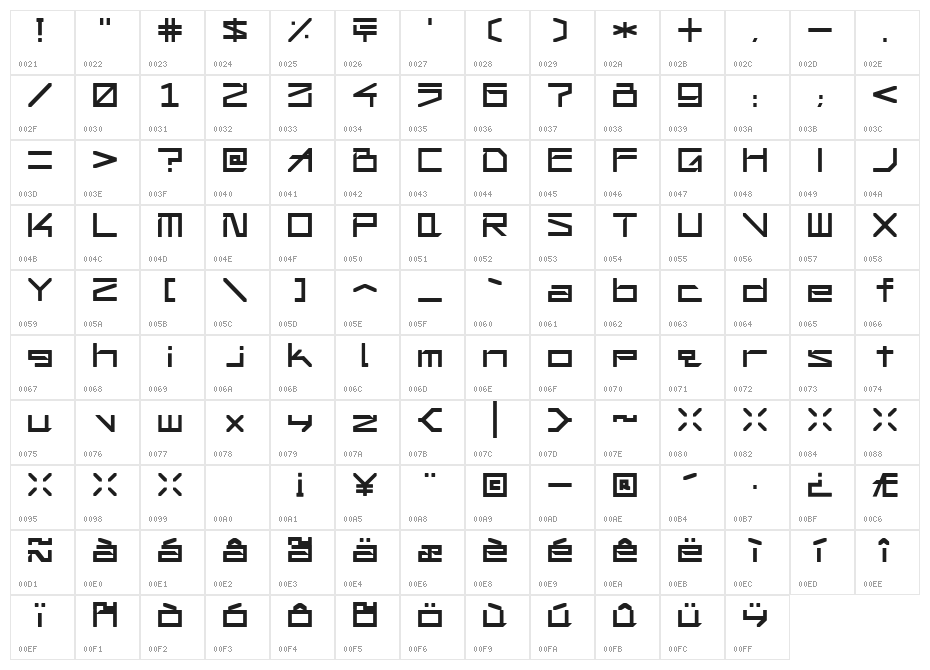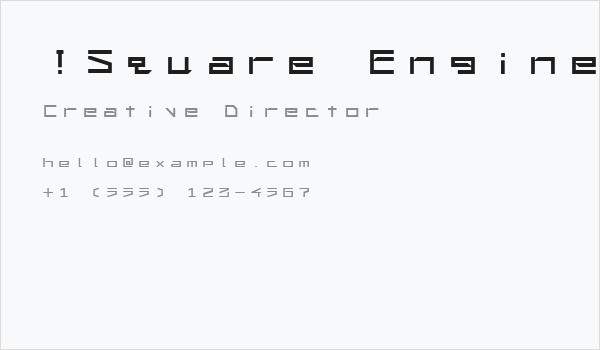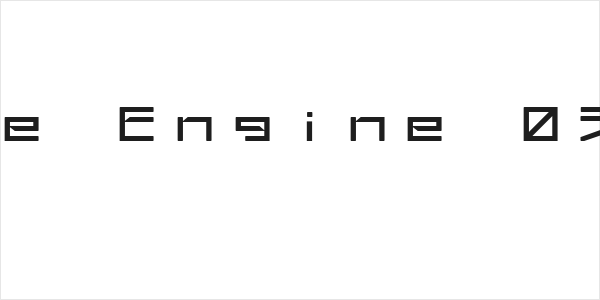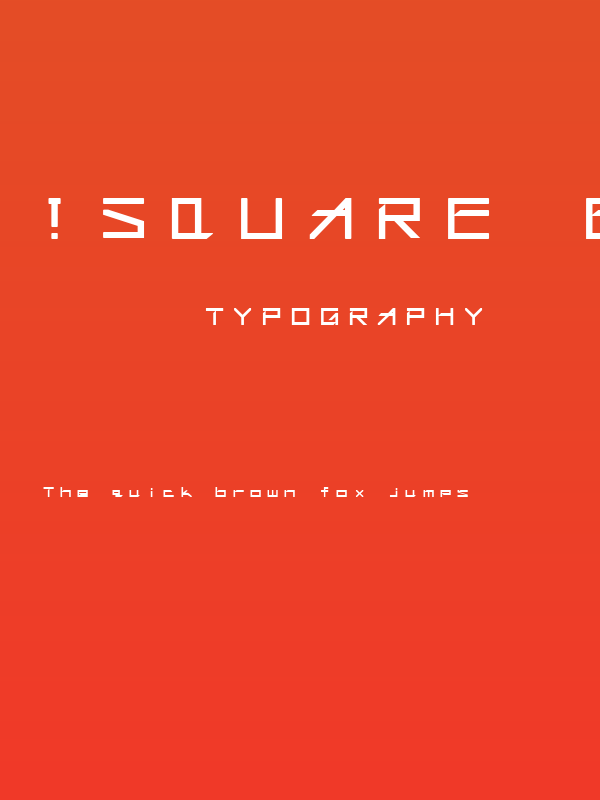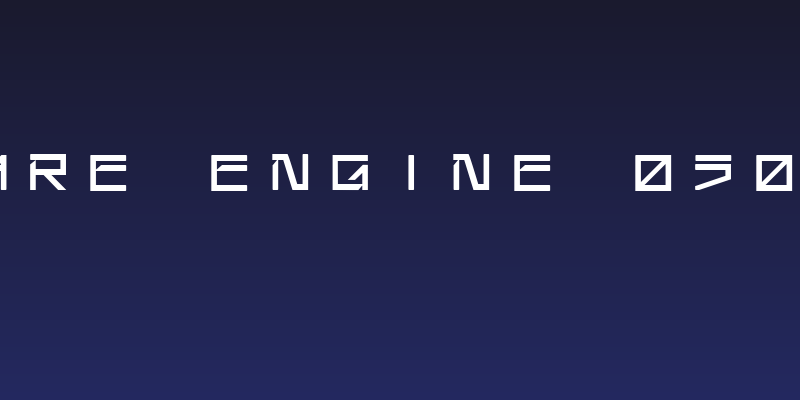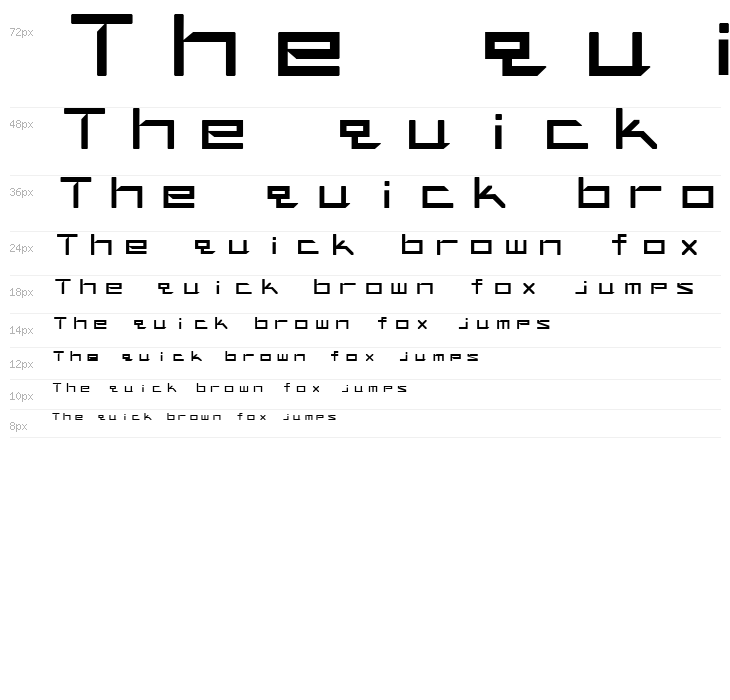
!Square Engine 050 Apex Font
!Square Engine 050 Apex Description
This font features a geometric and futuristic design with sharp angles and a blocky structure. The characters are constructed with straight lines and right angles, giving it a mechanical and digital appearance. The uppercase letters are bold and prominent, while the lowercase letters maintain the same angular style, creating a cohesive look. The numerals and special characters are consistent with the overall design, enhancing its modern and technical feel. This font is ideal for projects that require a strong, contemporary aesthetic.
| Proposed Projects | Ideal for technology branding, video game titles, sci-fi posters, and digital interfaces. |